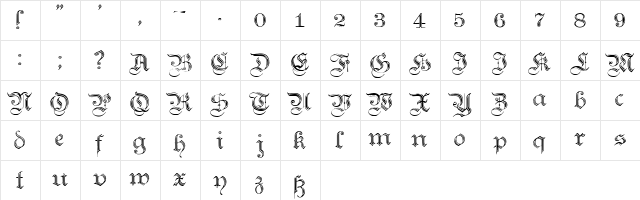
Teutonic No2 DemiBold
Design Context for Teutonic No2 Typeface
Teutonic No2 is a composed and adaptable typeface that performs quietly and consistently across a wide range of design contexts. The heavy weight commands attention and anchors typographic hierarchies.